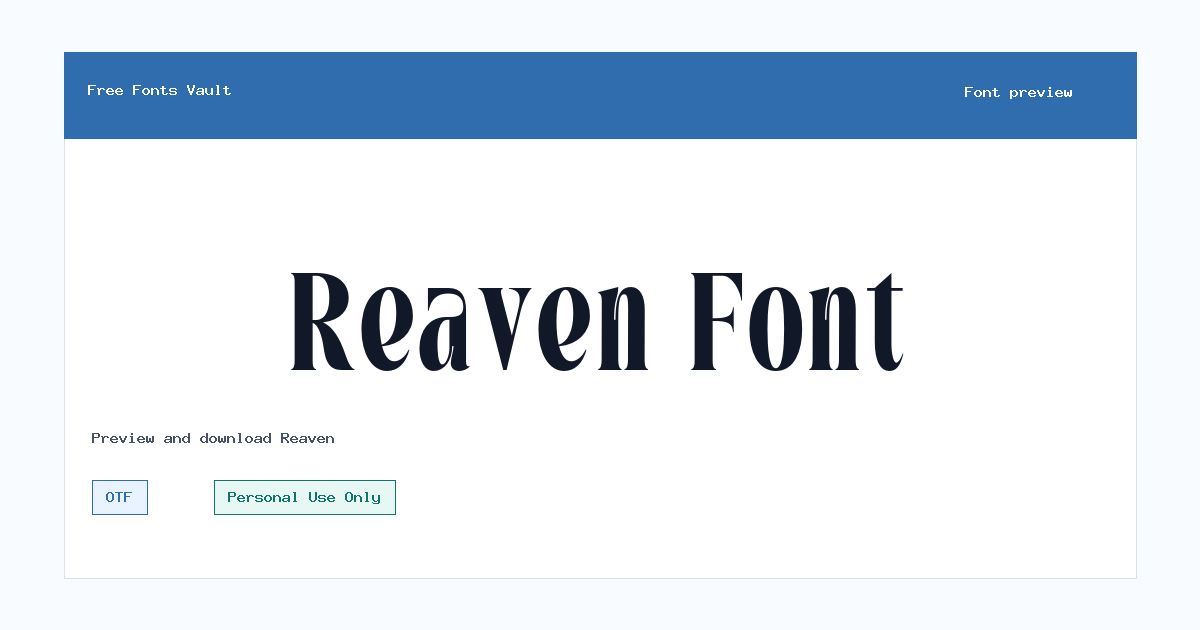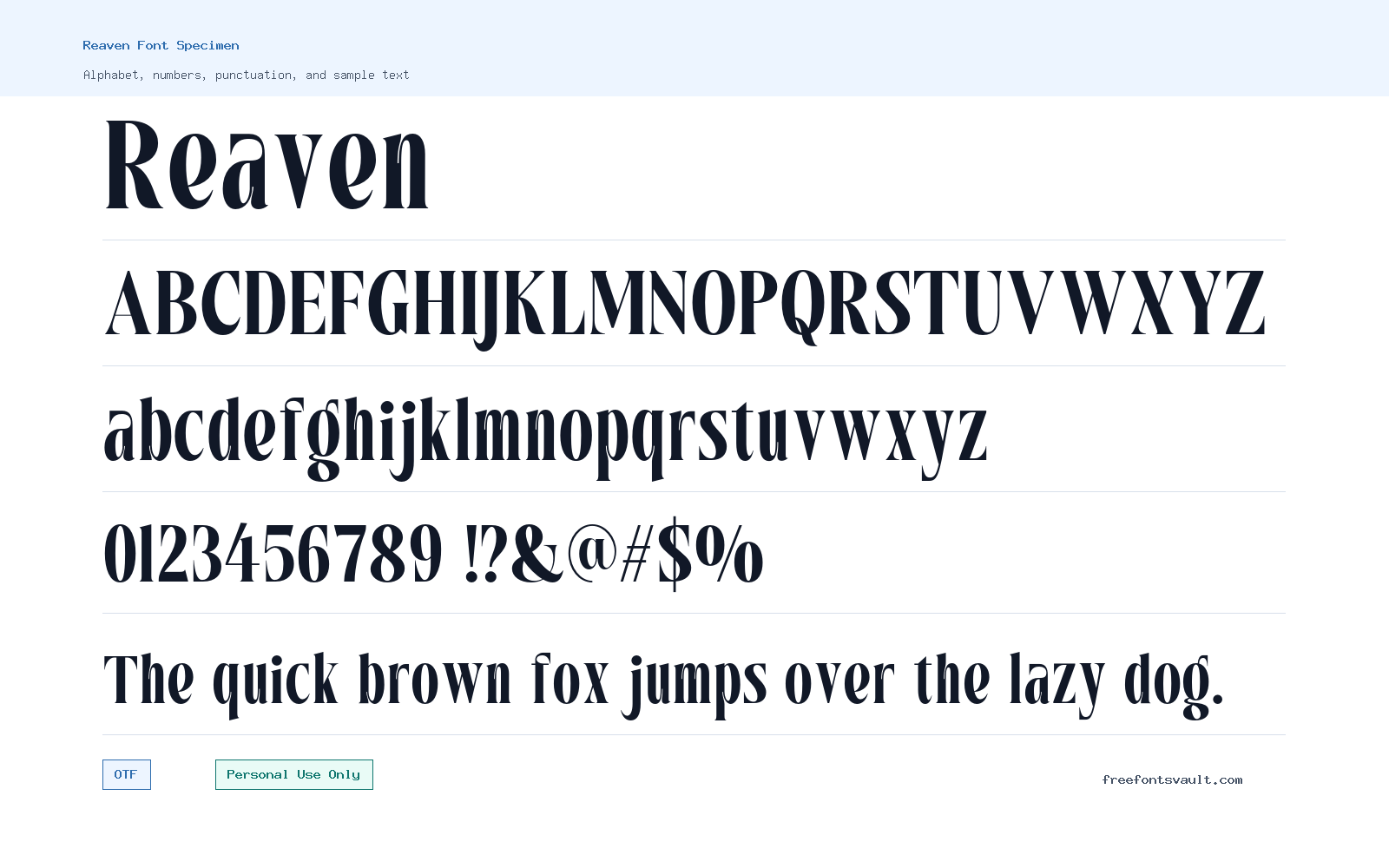
Reaven
Reaven Font
Reaven is a personal-use serif font by Bakhrudin Ja'far, offered as a regular OTF file for visitors who want to test a refined display style before using it in a project.
About Reaven Font
Reaven has the kind of serif structure that works best when the text has room to breathe. Use it for words and short lines where the letter shapes can stand out, such as a name, title, quote, invitation heading, poster line, or social graphic. Since only a regular style is listed, it is better to treat Reaven as a focused display choice rather than a full text family. It can give a project a polished editorial feel without needing extra weights, but the design should be tested carefully at the exact size you plan to use.
Before downloading, try the preview with your own wording. Test uppercase, lowercase, numbers, punctuation, and any special characters you need. A font that looks strong in a title may feel too delicate or decorative in long paragraphs, small captions, or dense mobile layouts. For cleaner results, pair Reaven with a simple sans serif for body copy, navigation, product details, or supporting text. Keep spacing generous, avoid long all-caps blocks unless they remain readable, and check the design on both light and dark backgrounds.
• Serif display style suited to headings, short phrases, and visual title work
• Posters, invitations, quotes, and editorial-style headings
• Logos, packaging mockups, social posts, and personal branding drafts that only need short text
What is Reaven best used for?
Reaven is best tested for short display text such as headings, posters, invitations, quotes, branding drafts, and social graphics.
Can I use Reaven for body text?
You can test it, but it is safer for short text and larger sizes. For paragraphs, pair it with a simpler text font and check readability before release.